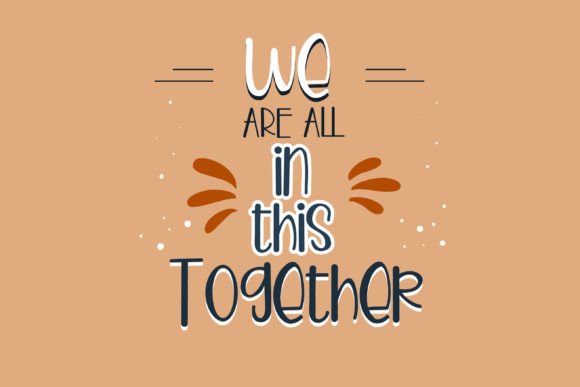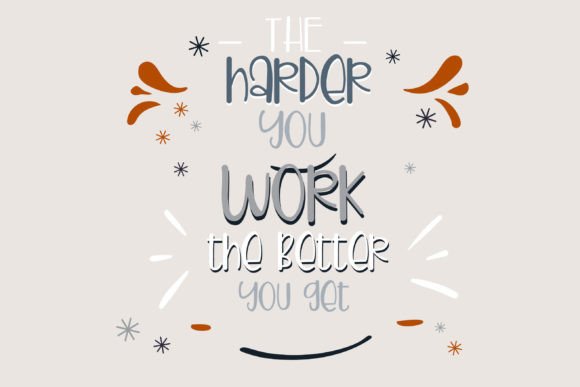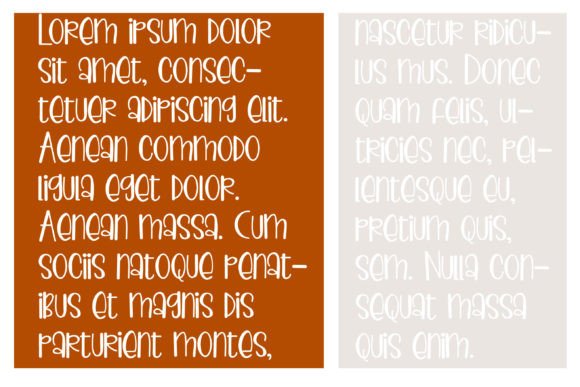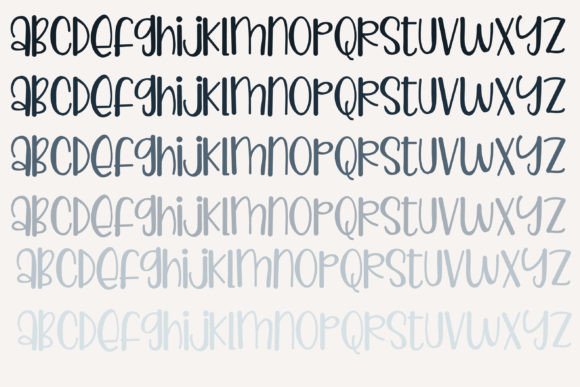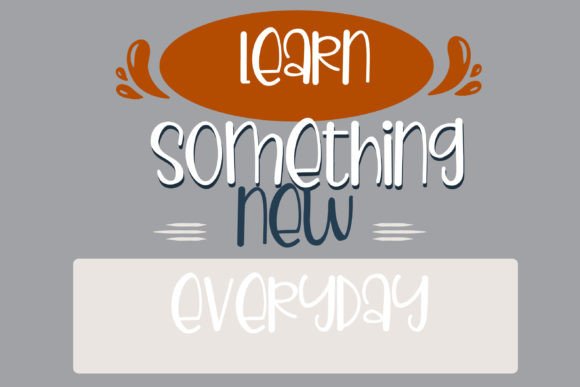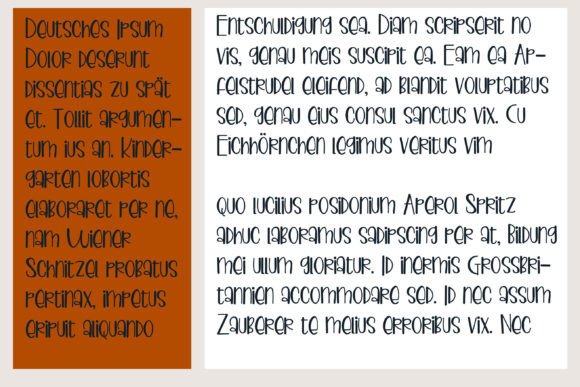
Have you ever been working on a design project and suddenly, you stumble upon that perfect font that makes everything click? For designers, it’s like finding the missing piece of a puzzle – it elevates the entire project and takes it to the next level. I still remember the moment I discovered the Butter Toast Font – it was love at first sight! This adorable handwritten font has been my go-to for creating warm and inviting designs that make people smile.
So, what’s behind the magic of Butter Toast Font? This fun and joyful font is designed to bring a touch of personality to your projects. Whether you’re creating a branding identity, a social media campaign, or a simple greeting card, Butter Toast Font is sure to add a dash of whimsy and charm. For designers, it’s a valuable tool that can help them stand out from the crowd and connect with their audience on a deeper level.
Butter Toast Font Key Features
- Font Size: 12,000+ glyphs (including letters, numbers, symbols, and ligatures)
- Resolution: Optimized for screen display at 72 dpi and 300 dpi for print
- Language Support: Multilingual support with coverage for over 100 languages
- Unique Characteristics: Unique blend of modern and vintage design elements, with a warm and inviting feel
- Font Style: Script, Casual, Display
Butter Toast Font Review
As a designer, I was excited to dive into the world of Butter Toast Font, and I’m here to share my honest review.
What works well: ✨ The font’s unique blend of modern and vintage elements is quite captivating. The subtle imperfections add a touch of character that makes it stand out from the crowd. Additionally, the font’s versatility shines through in its ability to be used across various platforms, from print to digital media.
The font’s readability is also noteworthy, making it a great choice for body text. It’s easy to see why it’s gained popularity among designers.
However, there are some limitations to consider: ⚠️ The font may not be the best choice for projects that require a high level of precision or sophistication. The imperfections that make it unique can also be seen as amateurish in certain contexts.
Overall impression: Butter Toast Font is a solid choice for designers looking to add some personality to their projects. While it may not be the best fit for every situation, its unique charm and versatility make it a worthwhile addition to any designer’s toolkit.
Pros:
- Unique blend of modern and vintage elements
- Versatility across various platforms
- Good readability
Cons:
- May not be suitable for projects requiring precision or sophistication
- Imperfections may be seen as amateurish in certain contexts
Tips for Getting the Most Out of Butter Toast Font
Use Butter Toast Font for headings and titles to add a touch of elegance and sophistication to your designs. Pair it with a clean and simple sans-serif font for body text to create a balanced and visually appealing layout.
Butter Toast Font is ideal for:
- Celebration and party invitations
- Wedding and event stationery
Alternatives to Butter Toast Font
Lato is a modern sans-serif font that works well for digital interfaces and body text. It’s highly legible and comes in a wide range of weights, making it suitable for headings and body text. Unlike Butter Toast Font, Lato has a more neutral tone and is less playful, making it a better choice for corporate or professional designs.
Montserrat is a geometric sans-serif font that’s perfect for urban and modern designs. It’s highly legible and has a strong x-height, making it ideal for body text. Compared to Butter Toast Font, Montserrat has a more angular and edgy feel, making it a better choice for designs that require a bold and modern look.
Arimo is a sans-serif font that’s highly legible and versatile, making it suitable for body text and headings. It has a clean and minimalistic design, which makes it a good choice for designs that require a simple and elegant look. Unlike Butter Toast Font, Arimo has a more formal tone and is less playful, making it a better choice for corporate or professional designs.
Is the Butter Toast Font optimized for digital use?
Yes, the Butter Toast Font is optimized for digital use, including web, mobile, and social media applications. The font has been carefully crafted to ensure clear readability and legibility across a range of screen sizes and resolutions.